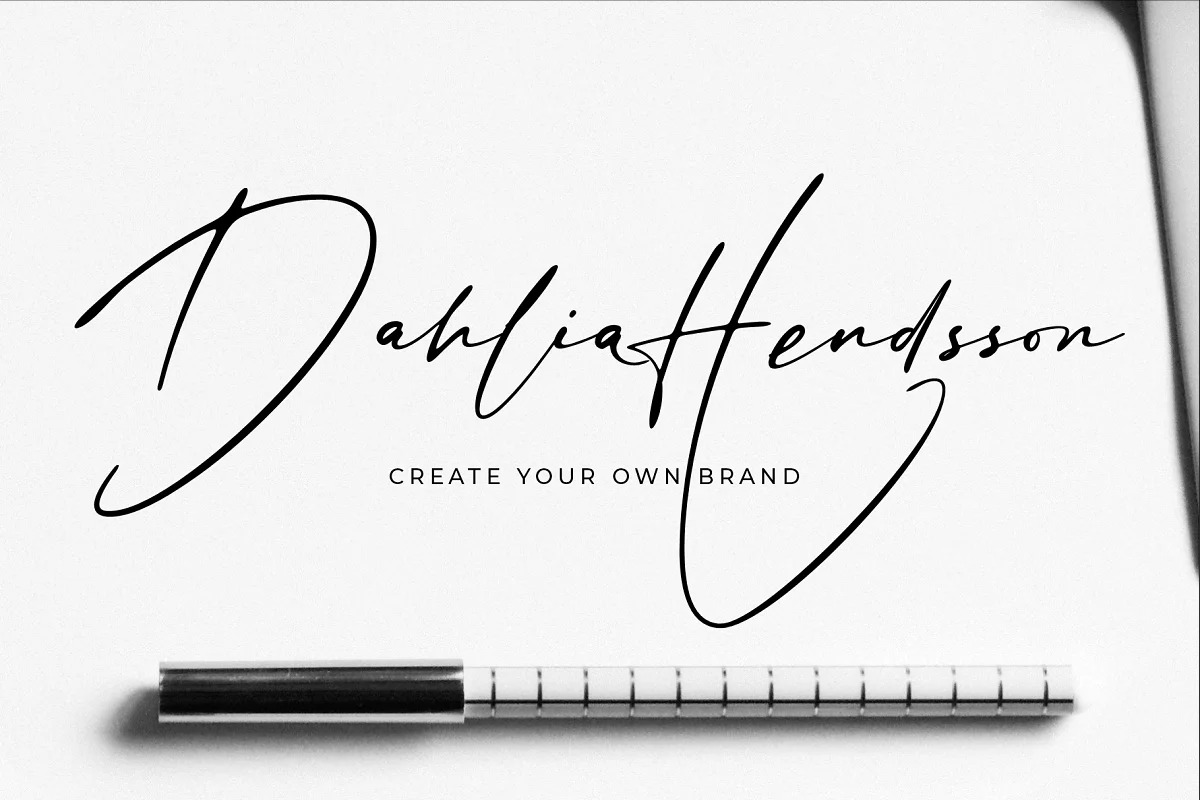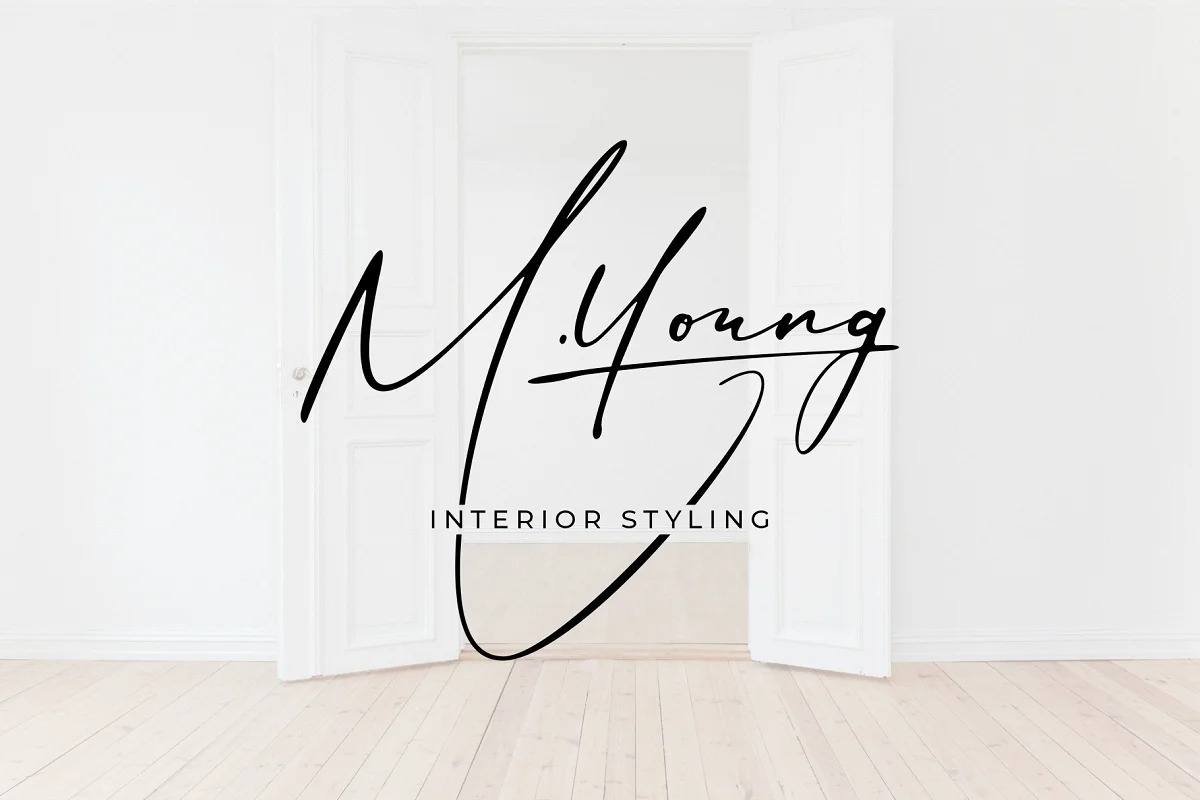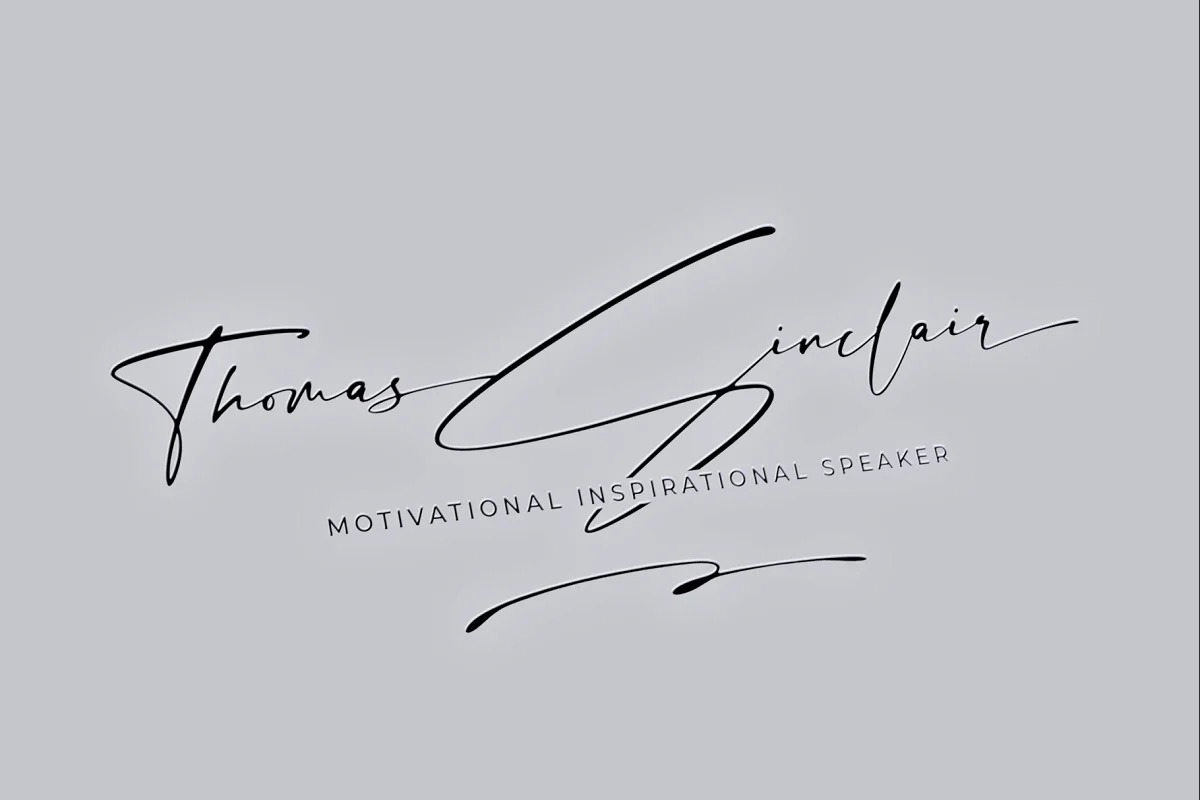
Sign Style Font
Sign Style Handwritten Font
This is a hand-drawn font. Designed for those of you who are needing a touch of clean signature font. The font combines a personal, hand-drawn feel with modern design, making it perfect for signature logos, branding, packaging, and advertising. Sign Style font has been designed in such a way that capital initials can be easily used at the beginning of a sentence to add a natural signature feel. This is a unique font that can make your signature brand stand out from the crowd while keeping it personal and friendly.